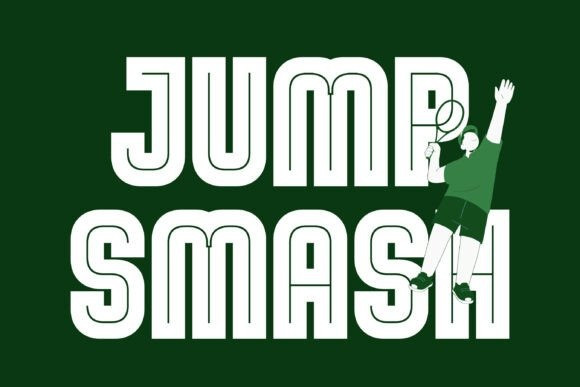
Quickz Font
Quickz Font is a modern sport display typeface built for speed, strength, and impact. Featuring bold letterforms, clean geometry, and powerful proportions, Quickz delivers a confident and energetic look that stands out in any sports-related design.Designed to perform perfectly on jerseys, team branding, posters, headlines, social media graphics, and promotional materials, Quickz offers excellent readability while maintaining a strong athletic character.